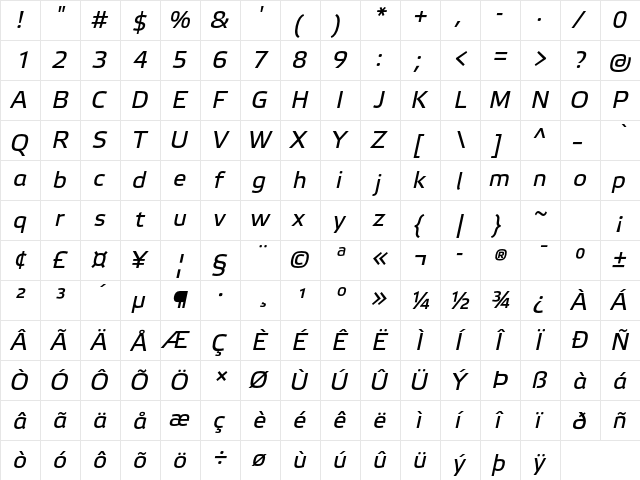
Elektra Text Pro Italic
Design Context for Elektra Text Pro Typeface
Elektra Text Pro is a composed and adaptable typeface that performs quietly and consistently across a wide range of design contexts. The dynamic lean of this cut emphasises speed and emphasis in any layout.
Pro Tip: Try Elektra Text Pro for annotation and caption copy alongside an upright companion — the contrast in angle creates a dynamic but ordered typographic system.